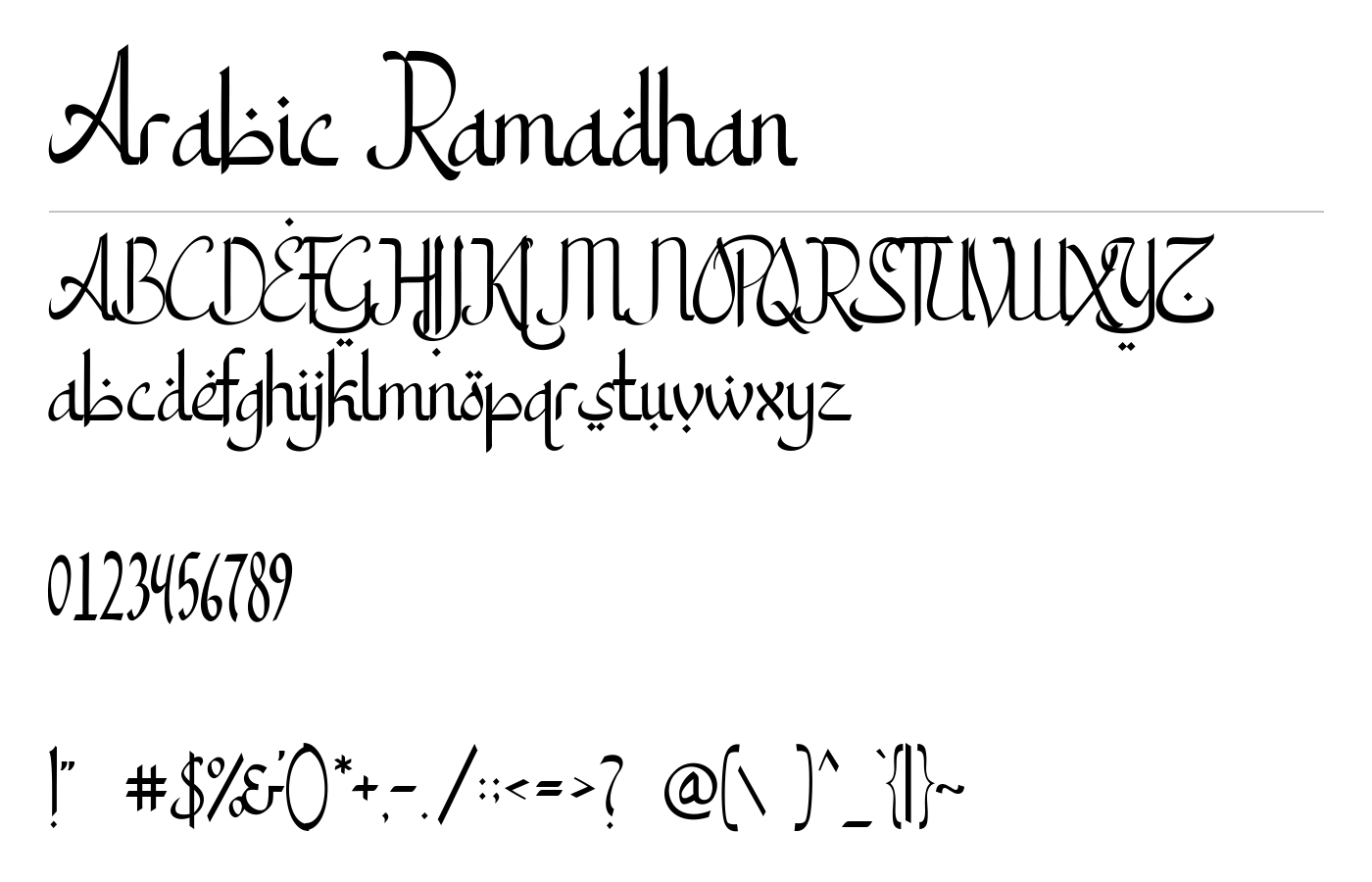
Arabic Ramadhan is an elegant serif font with a distinct calligraphic flair, featuring delicate thin strokes and charmingly intricate letterforms that echo traditional Arabic script influences. Its tall, narrow proportions and playful curves make it ideal for festive or cultural branding, invitations, and decorative headlines where a sophisticated yet unique style is desired. This font brings a refined, artistic touch that suits creative projects celebrating heritage and elegance.
Arabic Ramadhan Font
About Arabic Ramadhan Font
| Font family | Arabic Ramadhan Font |